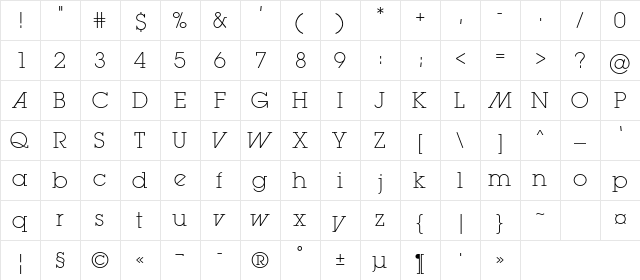
LugaExtraLightAdC Regular
Design Context for LugaExtraLightAdC Typeface
LugaExtraLightAdC is a composed and adaptable typeface that performs quietly and consistently across a wide range of design contexts. The delicate stroke weight brings airiness and refinement to layouts.